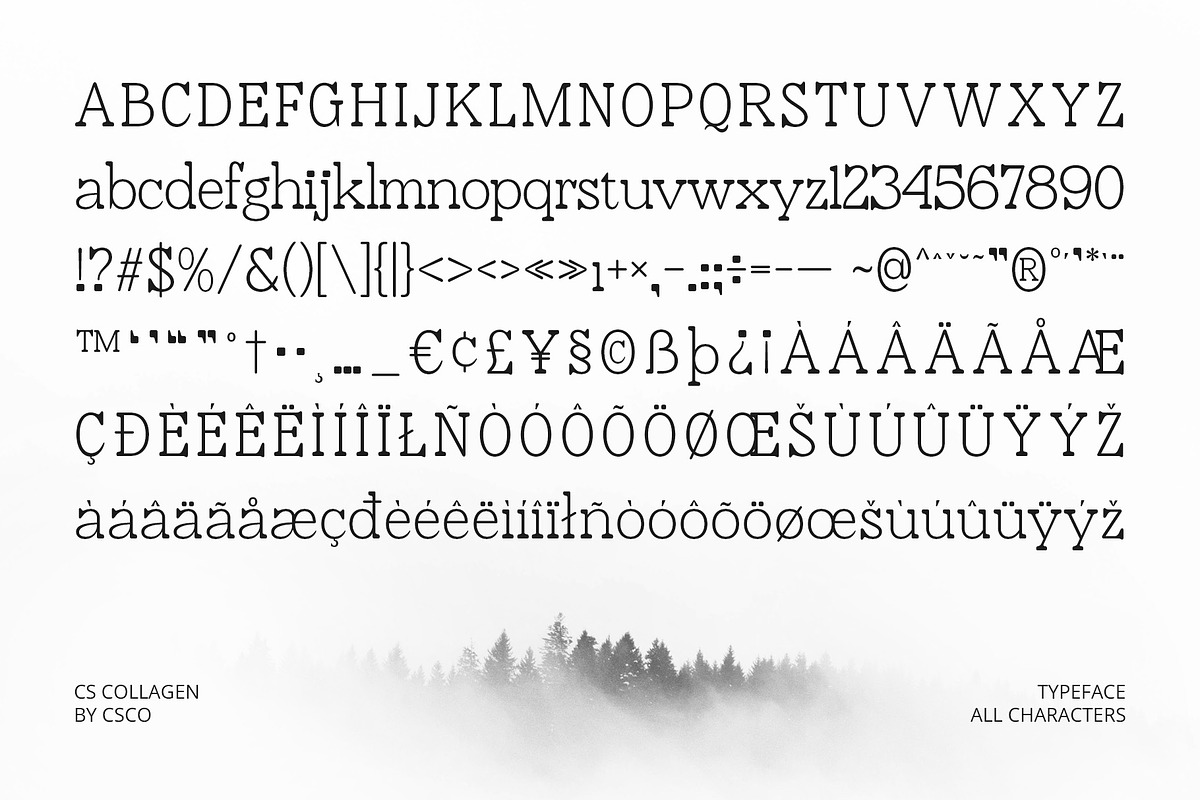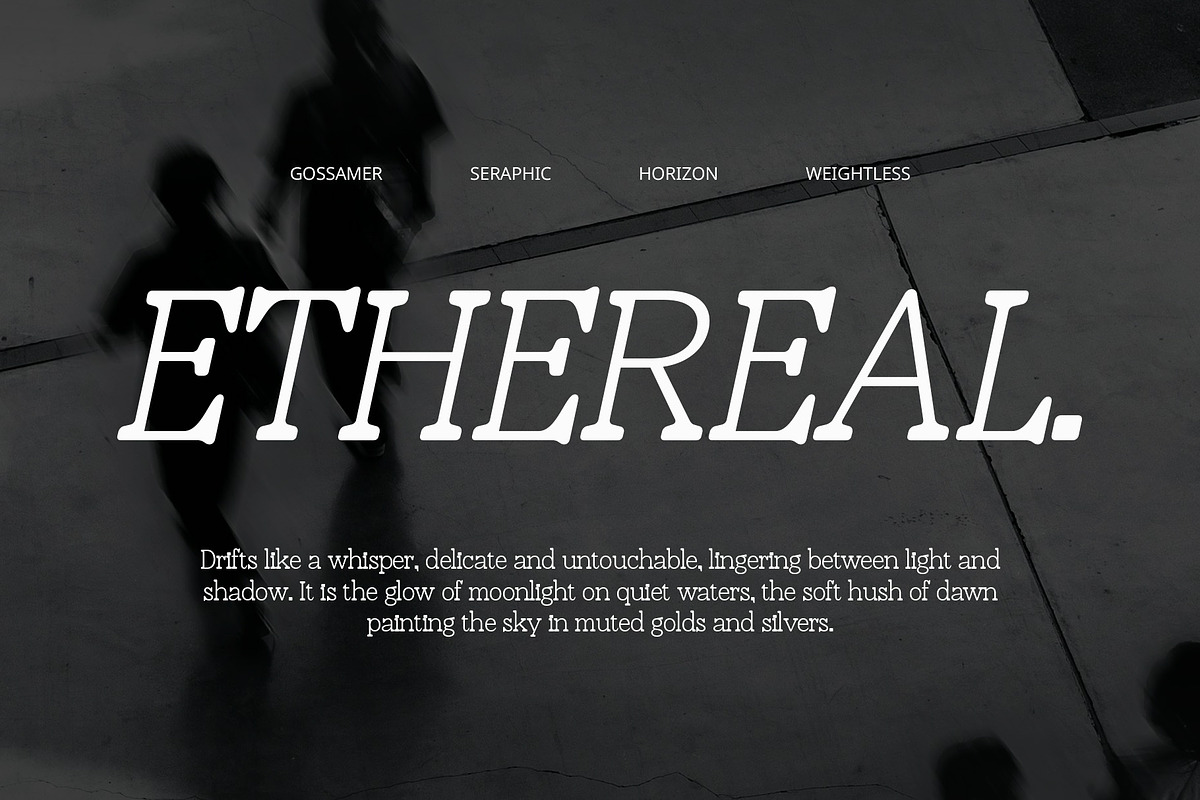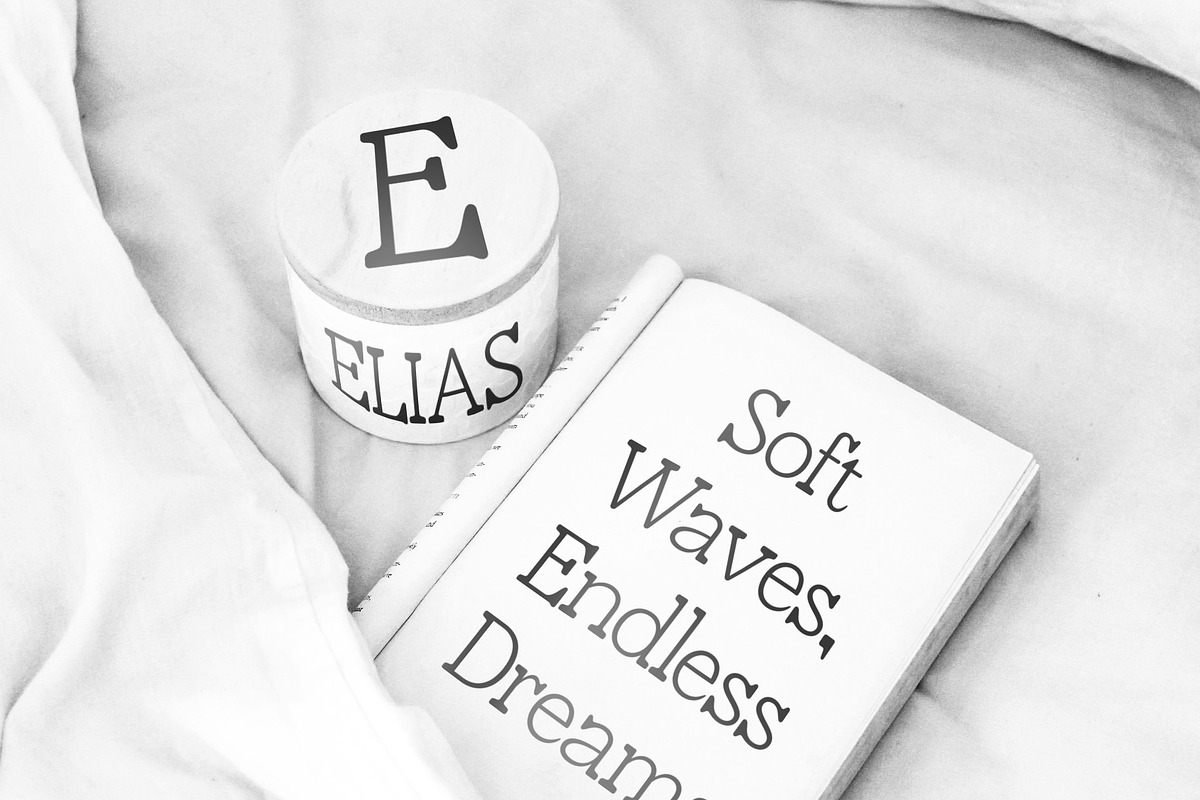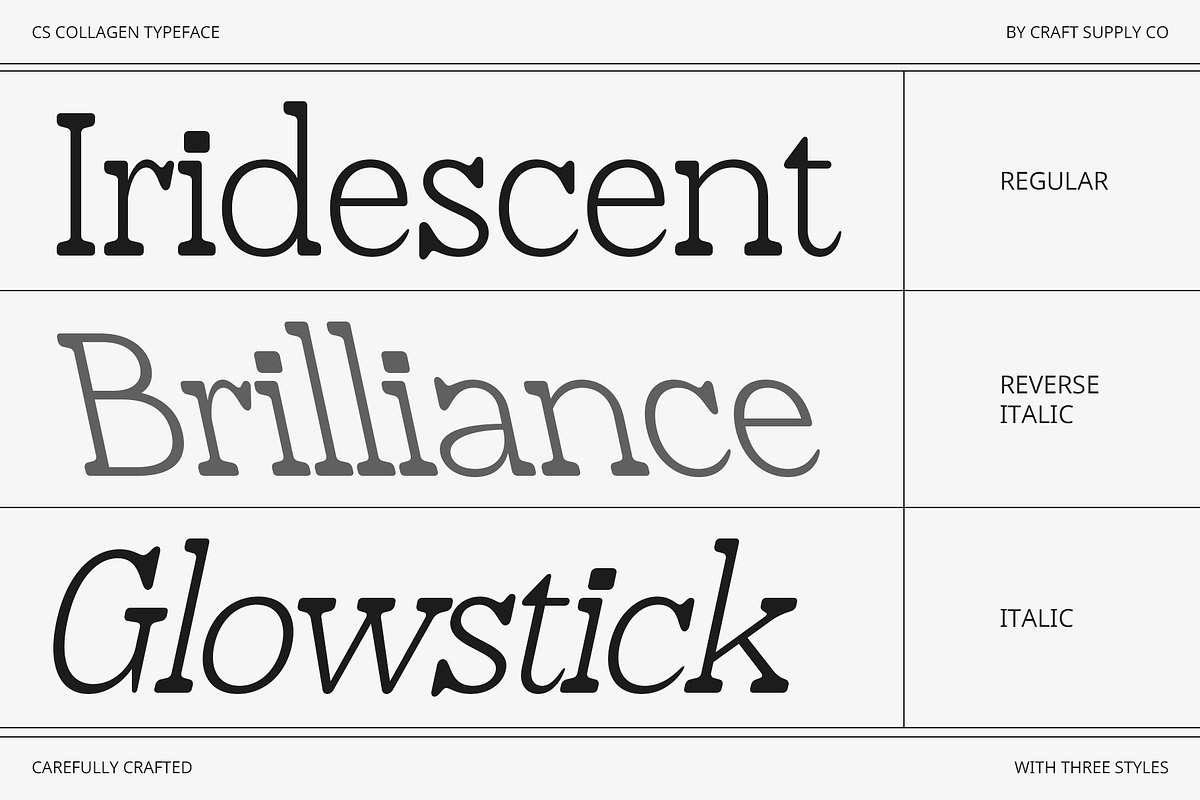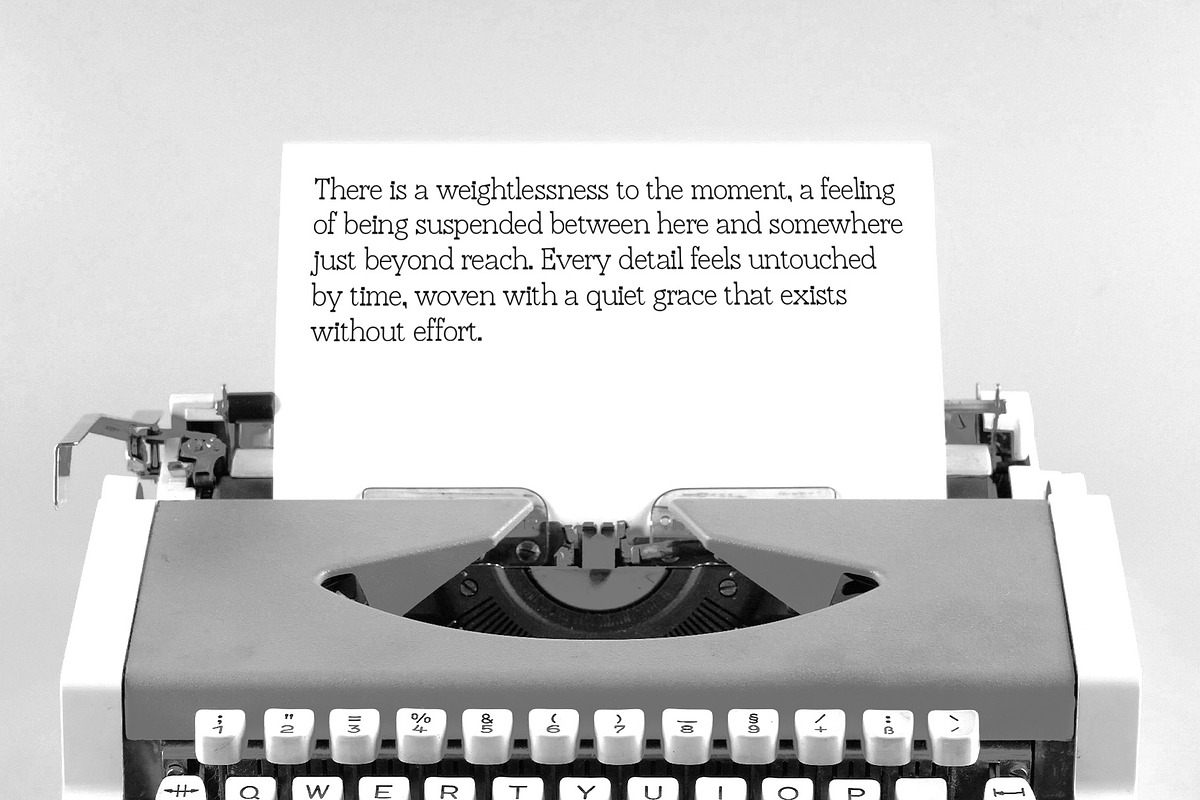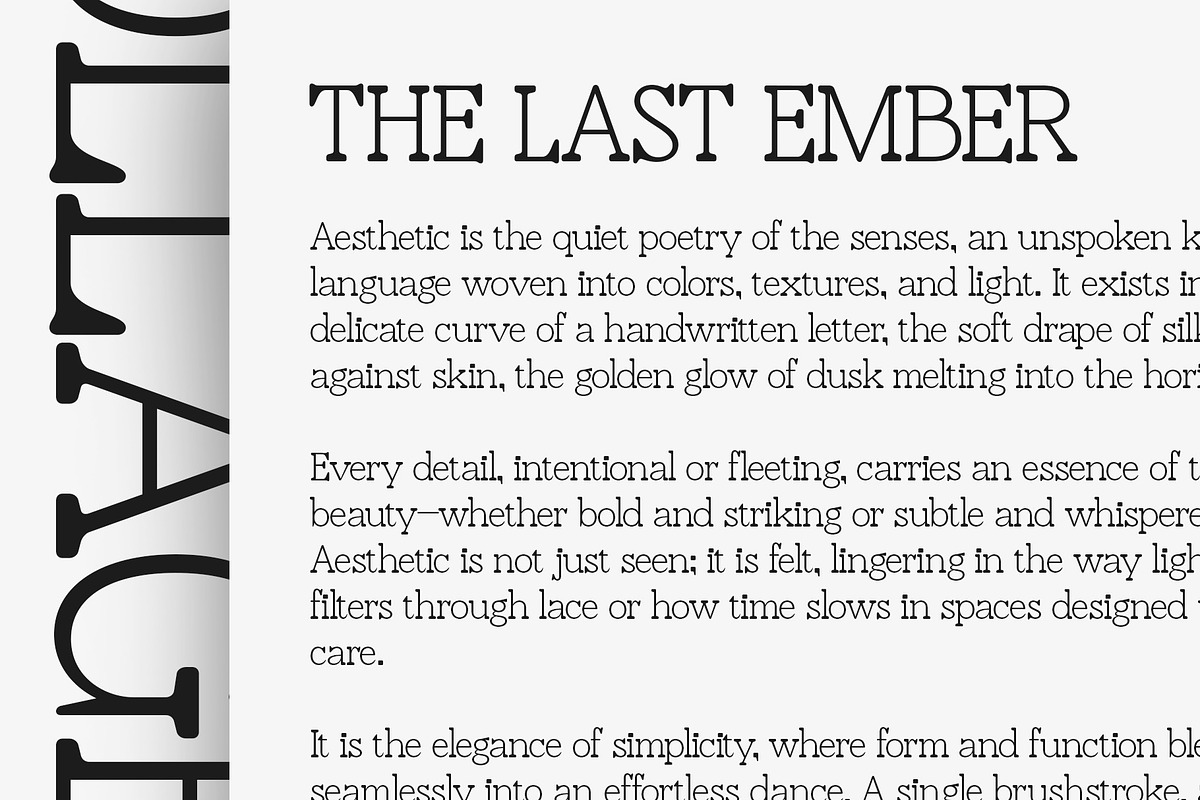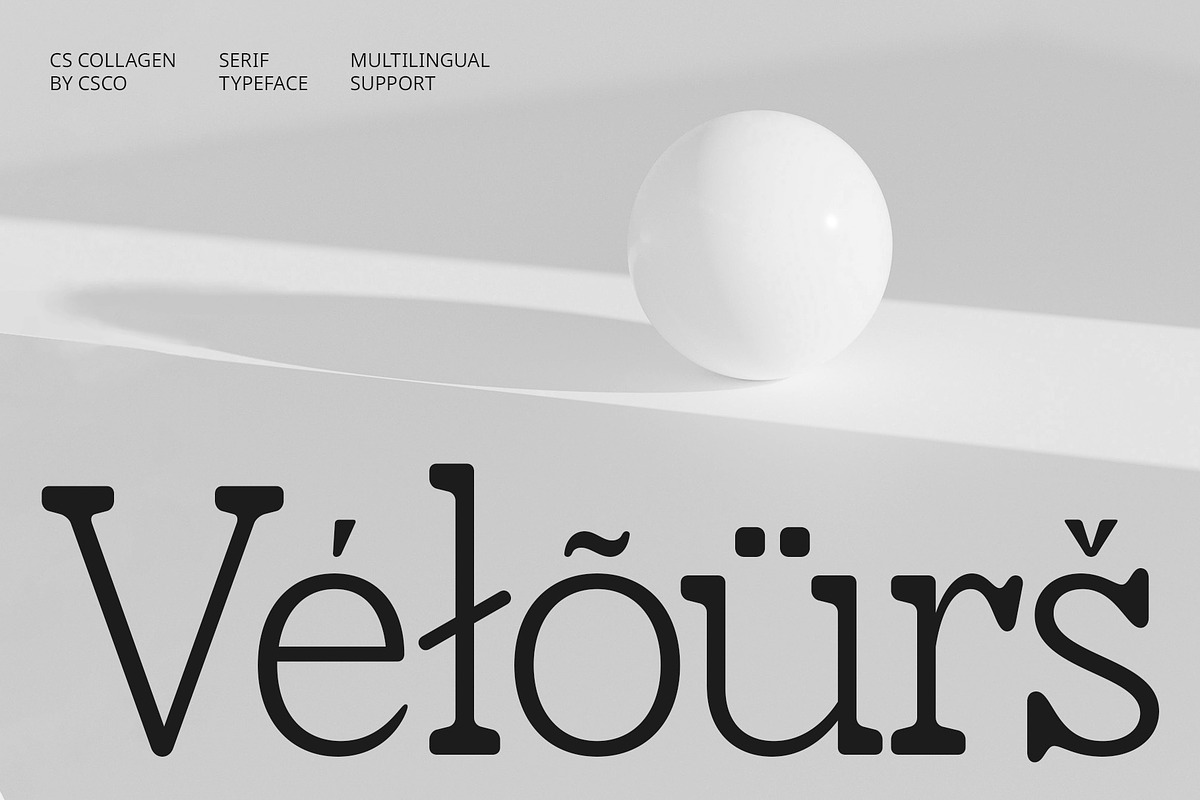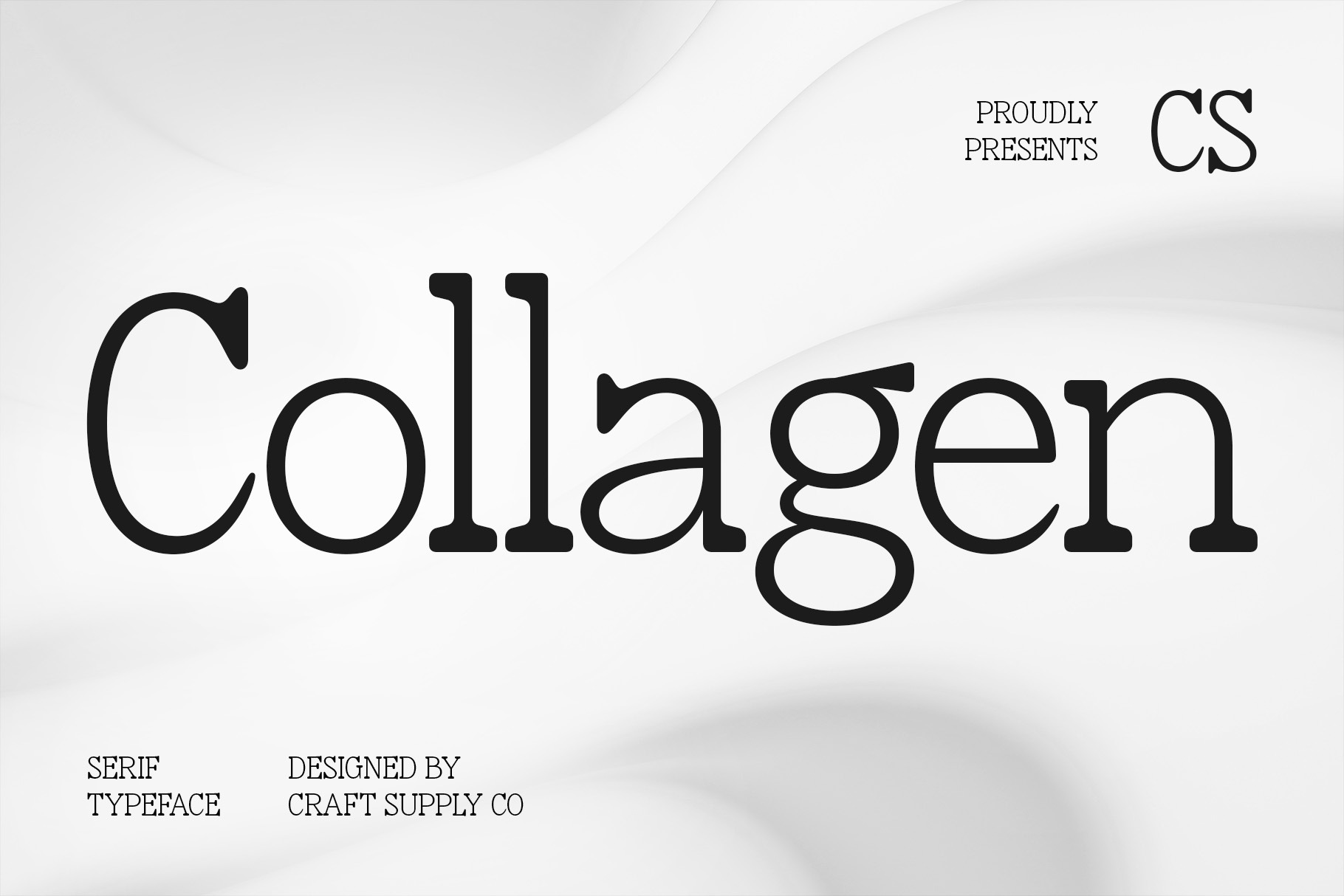
CS Collagen – Modern Font
CS Collagen – A Modern Serif Font with Timeless Sophistication
A Modern Serif with Elegance and Precision CS Collagen is a refined modern serif font that embodies elegance, professionalism, and contemporary style. With its clean lines, balanced proportions, and subtle details, this font offers a luxurious yet minimalistic aesthetic. Designed for high-end branding and sophisticated layouts, it brings a sense of confidence and refinement to any design.
Well-Balanced Characters for a Sleek Look Crafted with sharp serifs and smooth curves, CS Collagen maintains perfect harmony between classic serif elegance and modern simplicity. Its structured yet graceful letterforms provide excellent legibility and visual appeal, making it a versatile choice for editorial design, corporate identity, and premium packaging.
Perfect for High-End and Digital Applications Whether used in luxury branding, magazines, websites, or product packaging, CS Collagen enhances visual storytelling with a polished and timeless presence. Its contemporary yet classic appeal ensures that it remains relevant in both print and digital landscapes.
Elevate Your Design with CS Collagen For designers seeking a sophisticated and stylish serif, CS Collagen delivers modern refinement with a professional edge. It is an ideal choice for projects that demand elegance, clarity, and a touch of exclusivity, ensuring your designs stand out with unmistakable class and sophistication.
- CS Collagen Regular
- CS Collagen Italic
- CS Collagen Reverse Italic